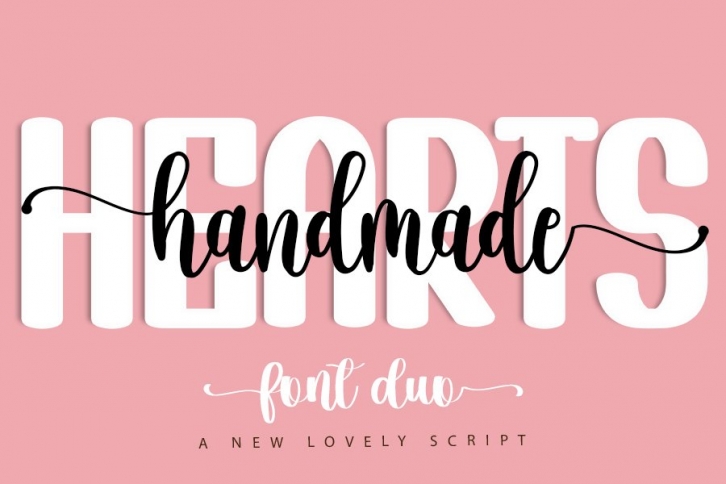
Hearts Handmade Duo is a trendy and unique font with an authentic style. It was designed by FreshType INK and it's a great choice for creative people who need such a font. It was released on April 20, 2022 and the file size is 8.48 MB. Hearts Handmade Duo will add an organic vibe to any design idea!